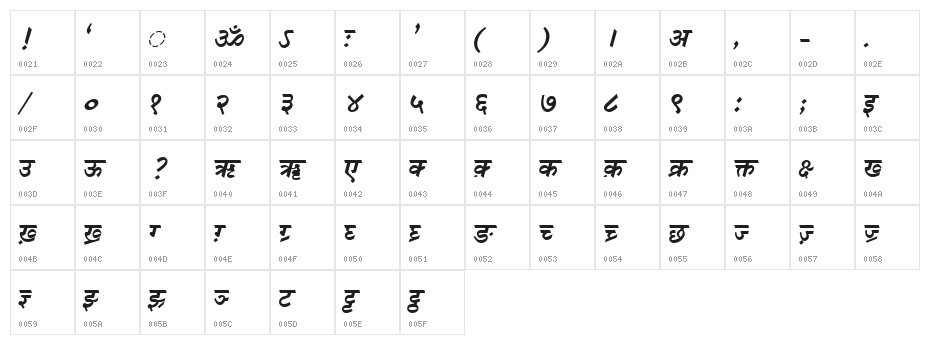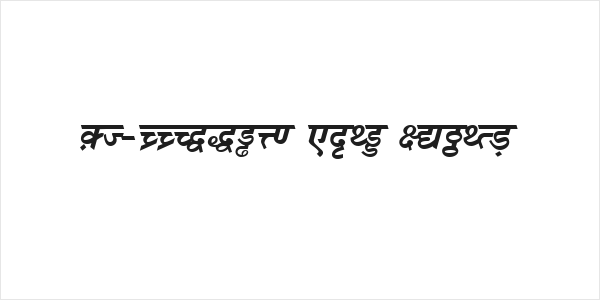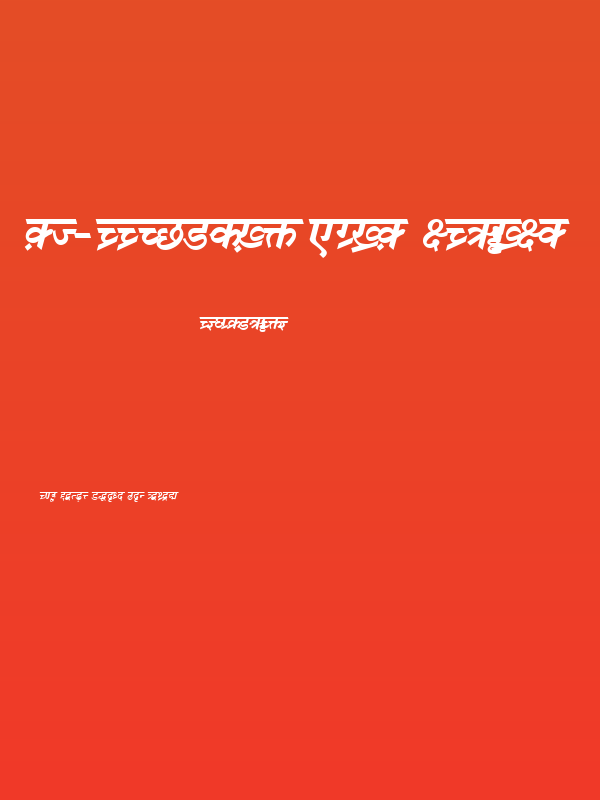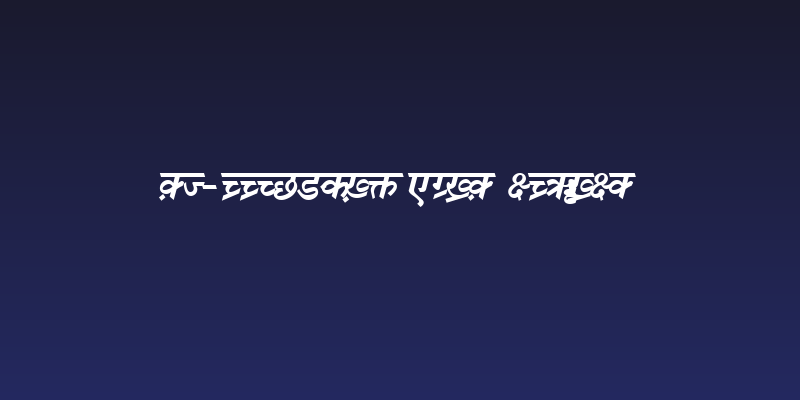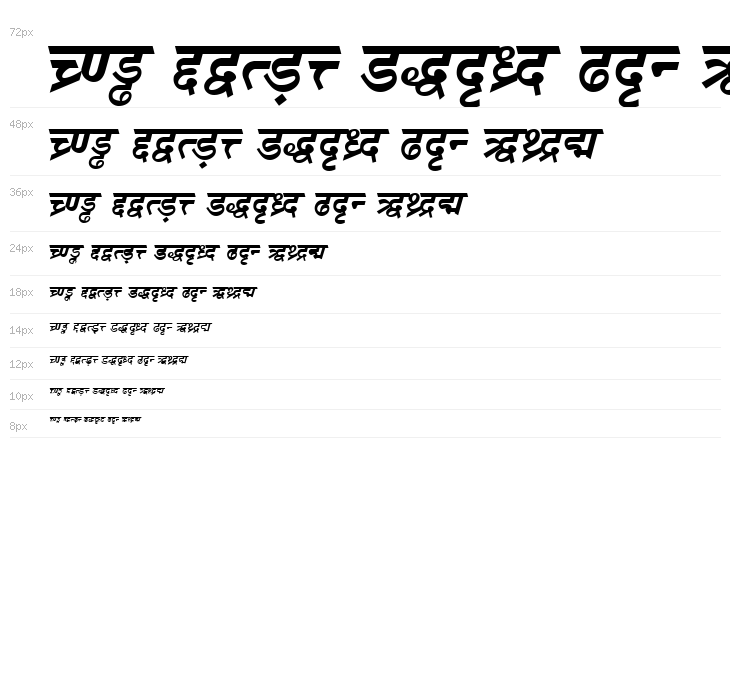
DV-TTSurekh Bold Italic Font
DV-TTSurekh Bold Italic Description
This font features a bold and italicized style, characterized by its strong and dynamic strokes. The script is designed with a high level of contrast, where the thick and thin lines create a striking visual impact. The characters are slightly slanted, enhancing the italic effect, and the overall appearance is both modern and traditional, making it suitable for a variety of uses. The spacing between characters is normal, allowing for clear readability while maintaining a cohesive look. This font is particularly effective in conveying a sense of elegance and authority, making it ideal for formal documents or artistic projects.
| Use Case | Headlines, Logos, Artistic projects |
| Proposed Projects | Ideal for formal documents, artistic projects, branding, and signage. |